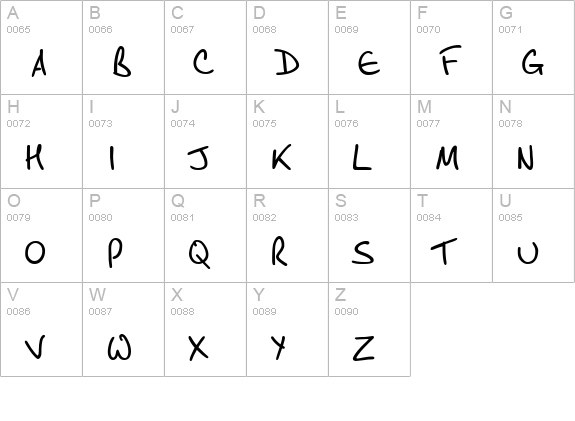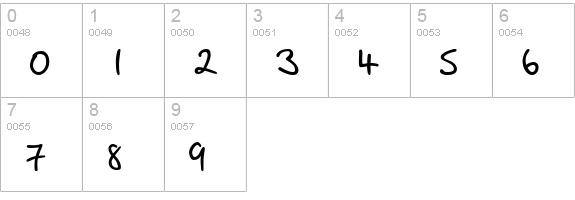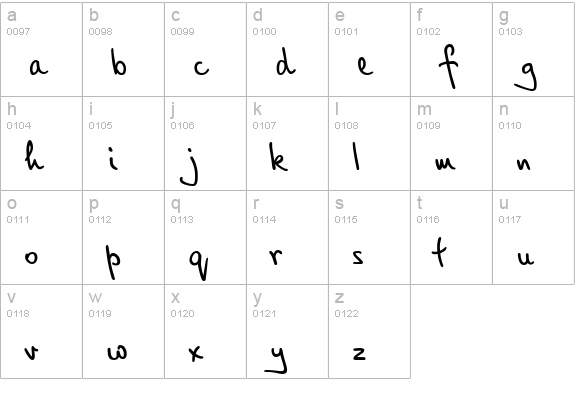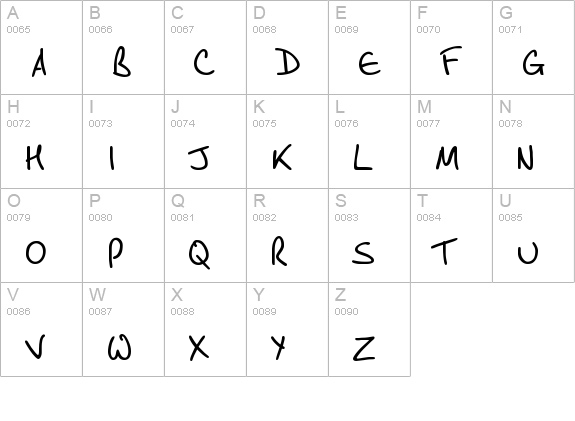
PT Script Breeze Font Details
PT Script Breeze is a charming and elegant font that exudes a sense of sophistication and grace. With its delicate curves and flowing lines, this script font is perfect for adding a touch of class to your designs. Whether you're working on wedding invitations, elegant branding projects, or any other creative endeavor that requires a touch of elegance, PT Script Breeze is sure to impress. The best part? PT Script Breeze is available for free download at FontsMarket.com. That's right, you can add this beautiful font to your collection without spending a dime. So go ahead and give your projects that extra special touch with PT Script Breeze. Download it today and let your creativity soar.